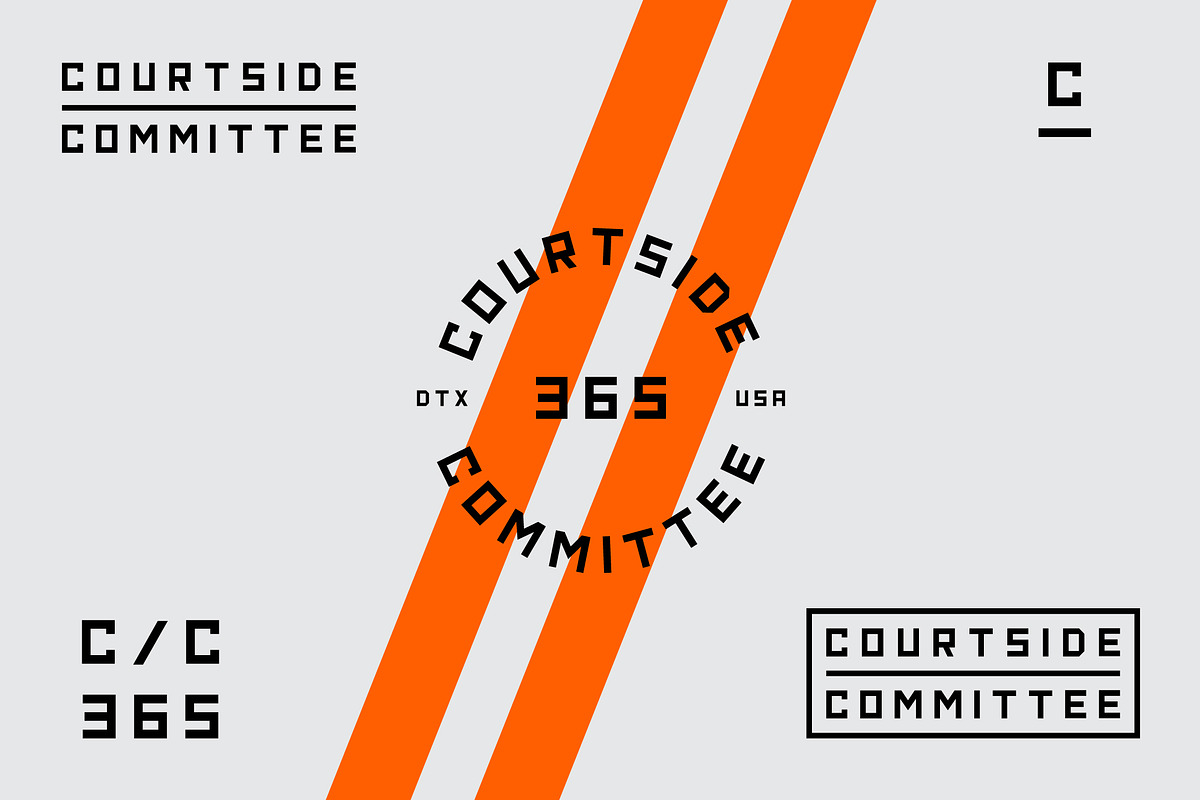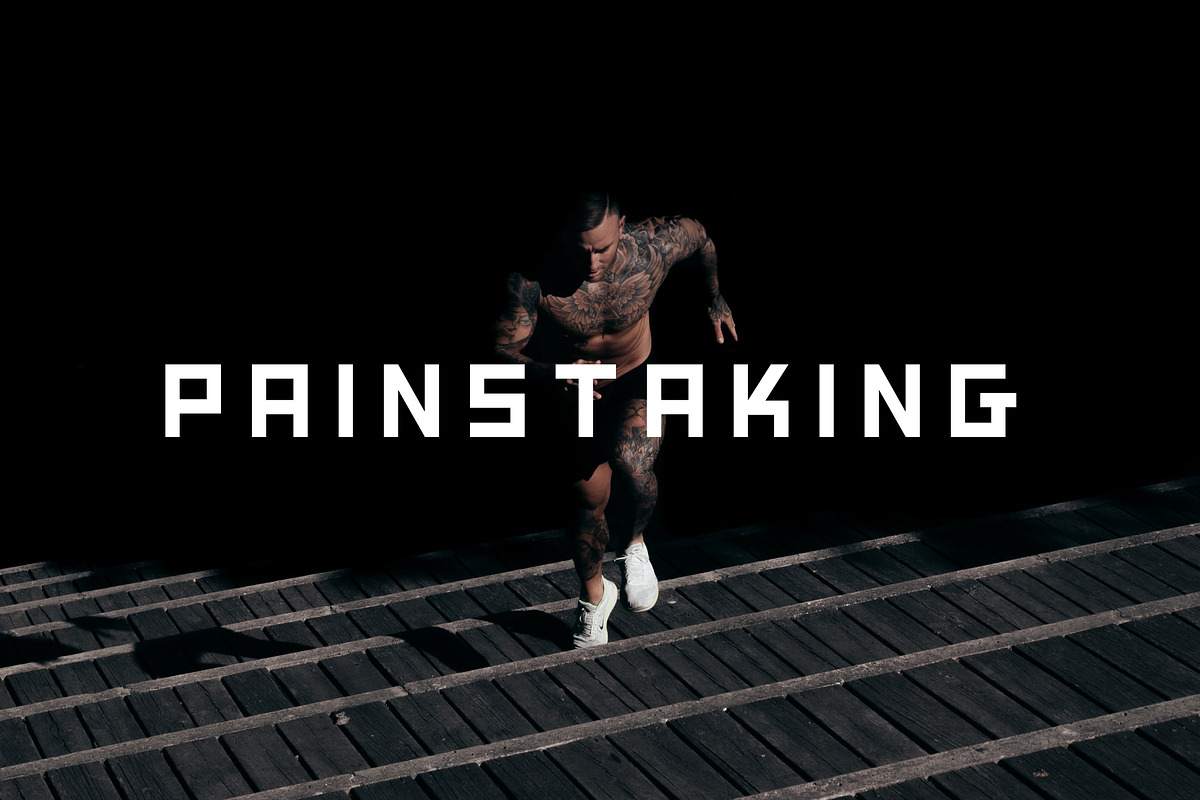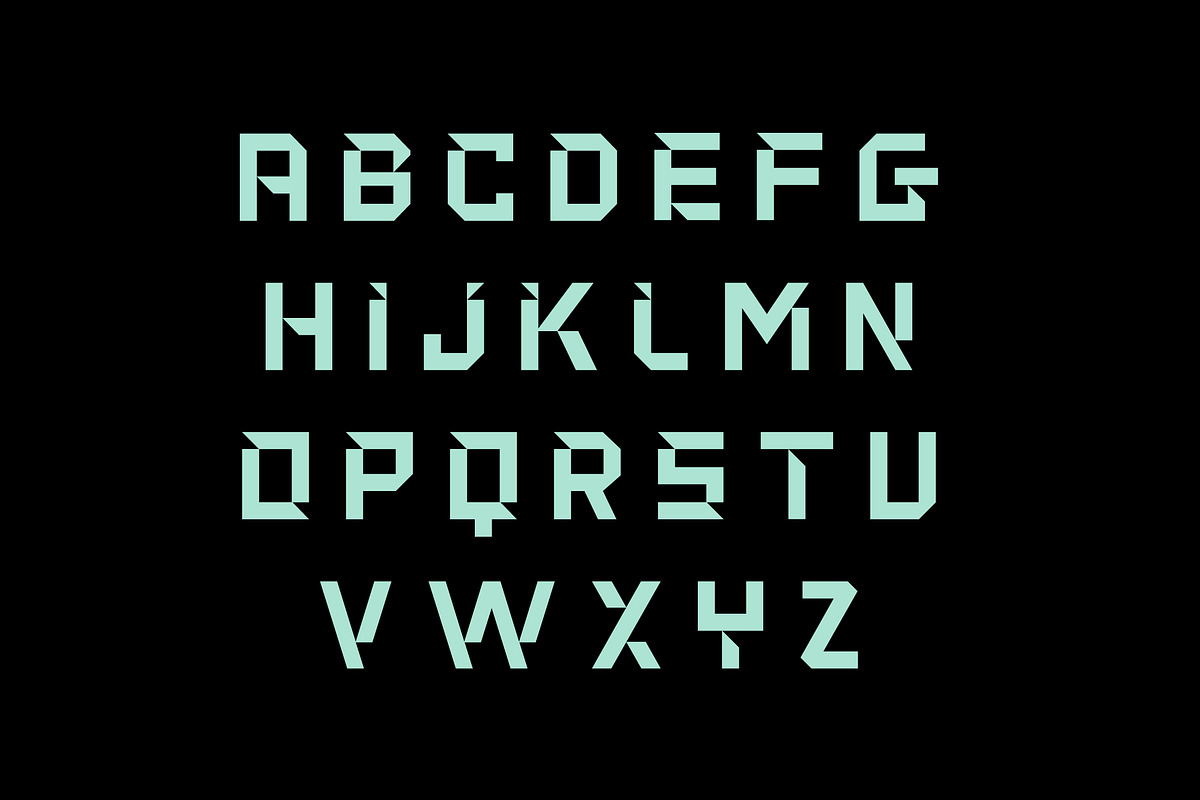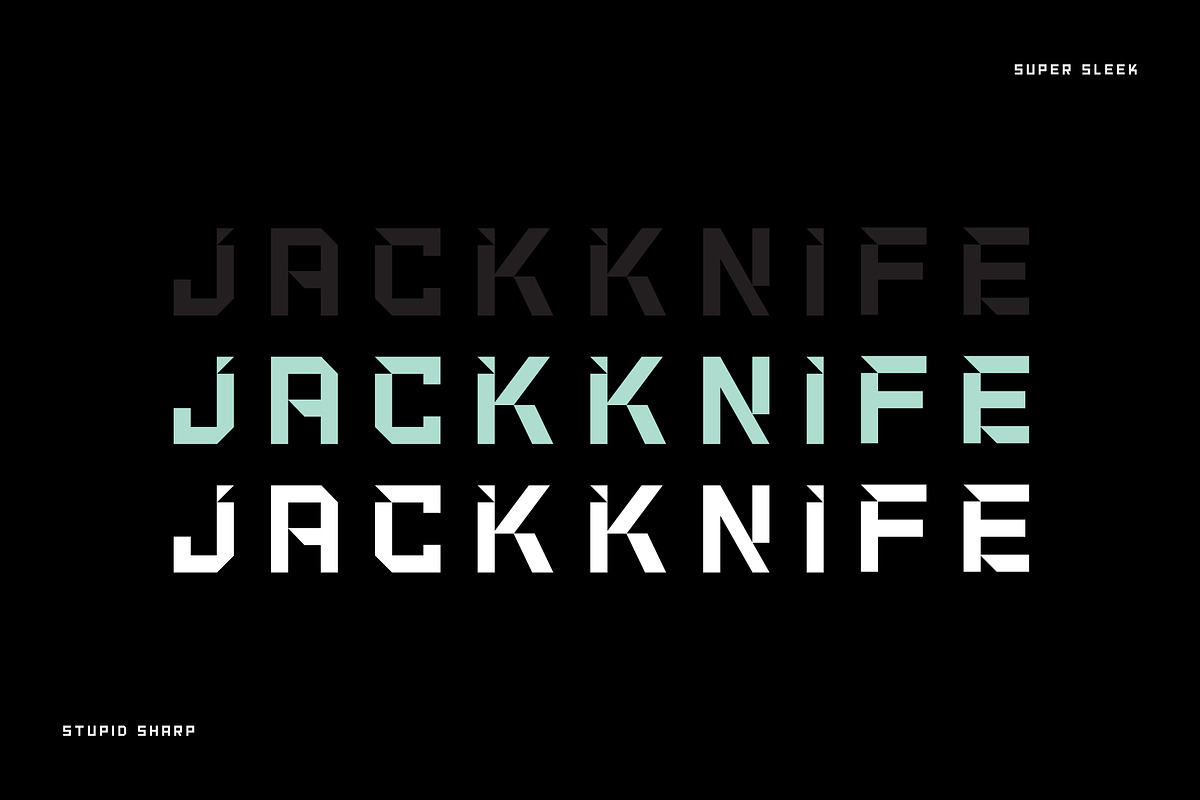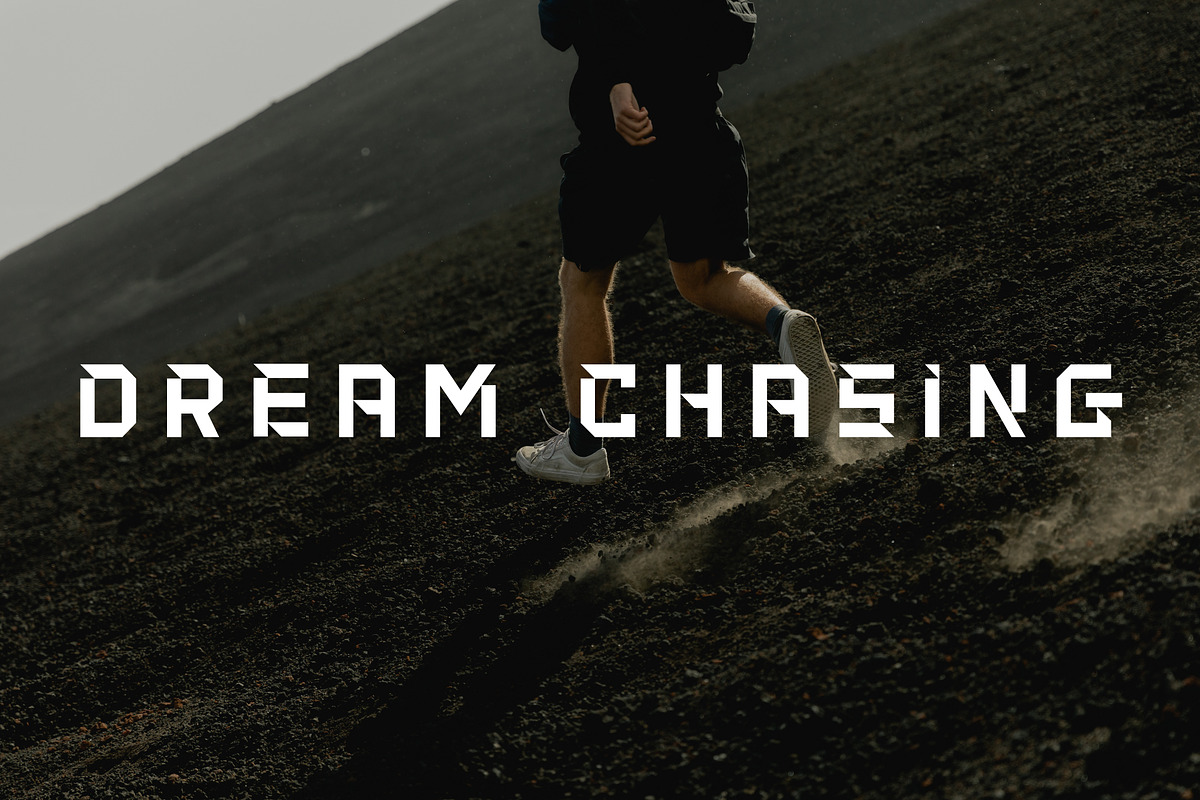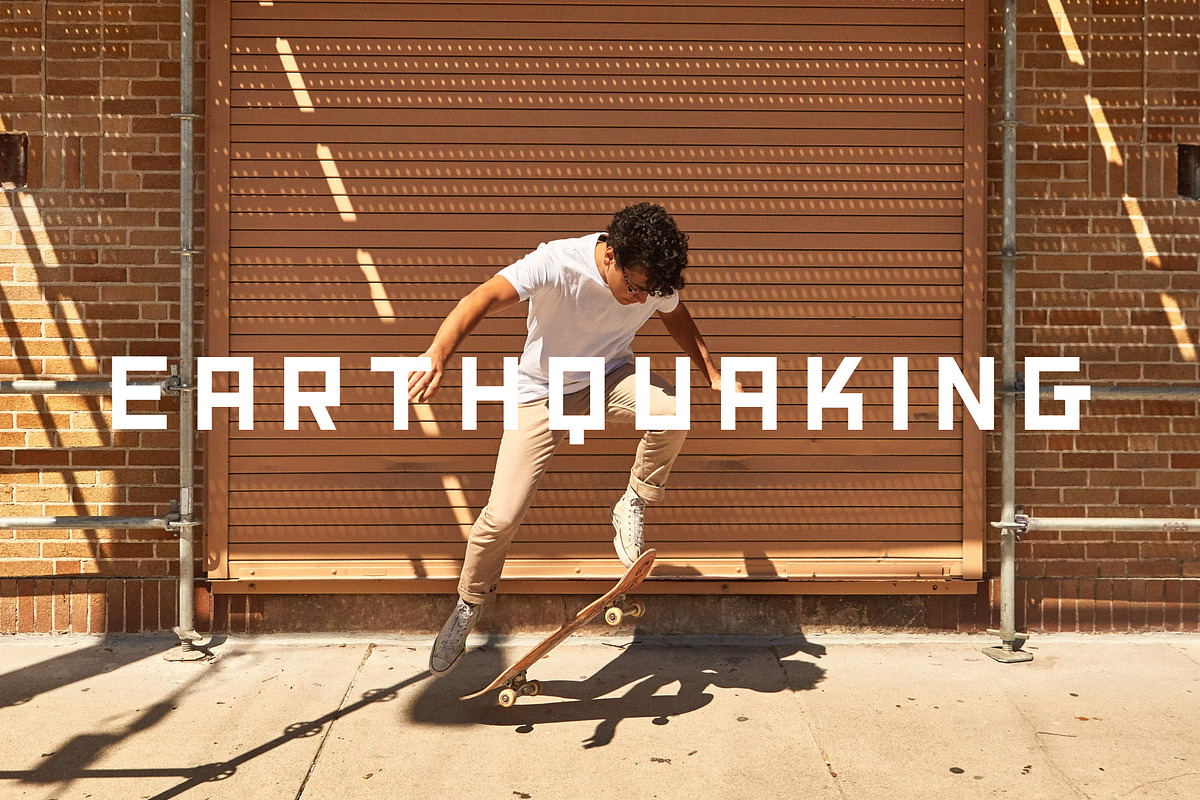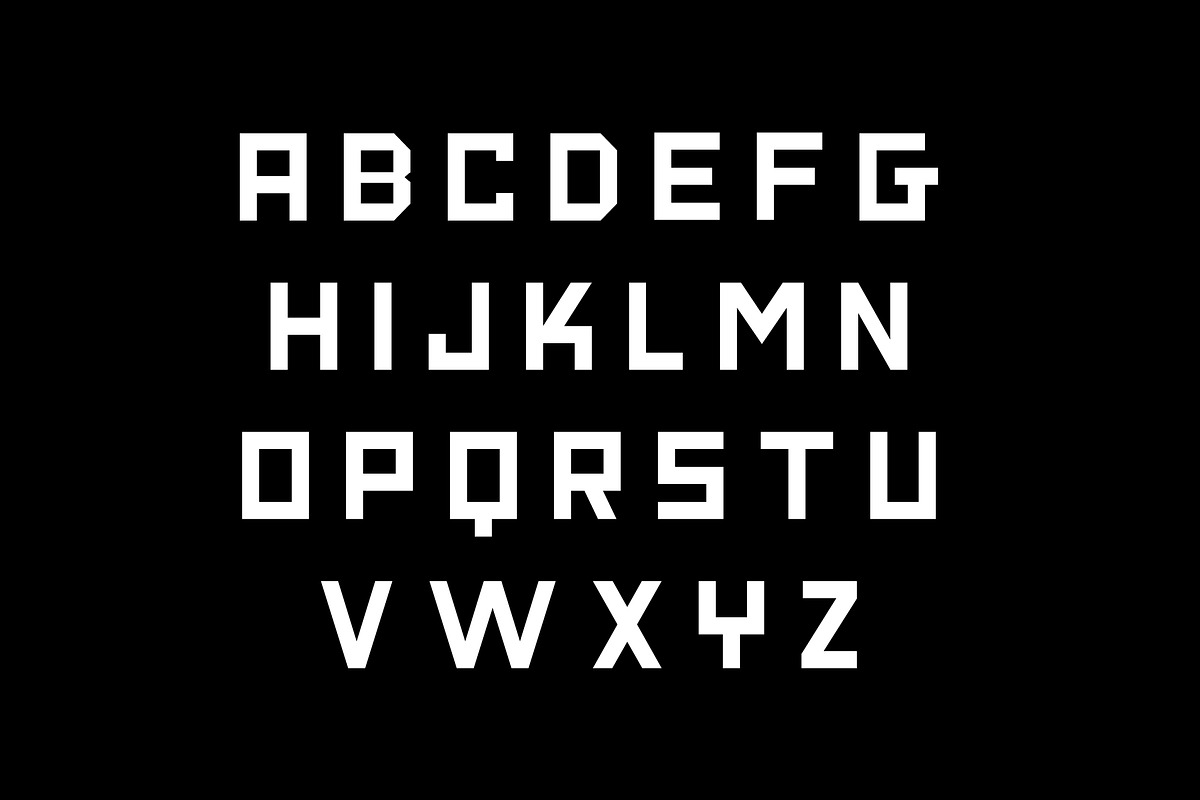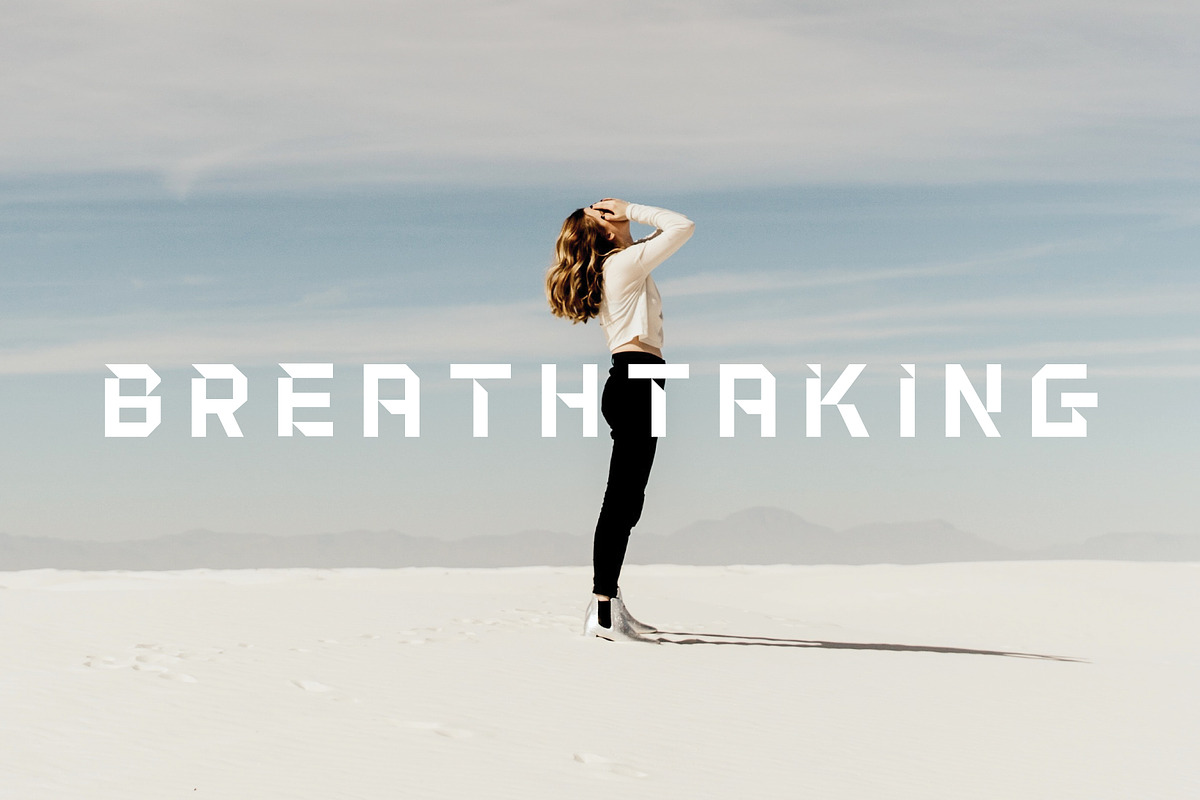
Jackknife - Edgy Display Font
A modern display font with a stupid sharp edge! This sleek font and a clean and cool look to any design project. Perfect for logos, posters and cover art, but really works well for all purposes.
THIS ENTIRE FONT IS CAPITALIZED
Regular & Cut Versions
- THIS ENTIRE FONT IS CAPITALIZED
- Regular & Cut Versions